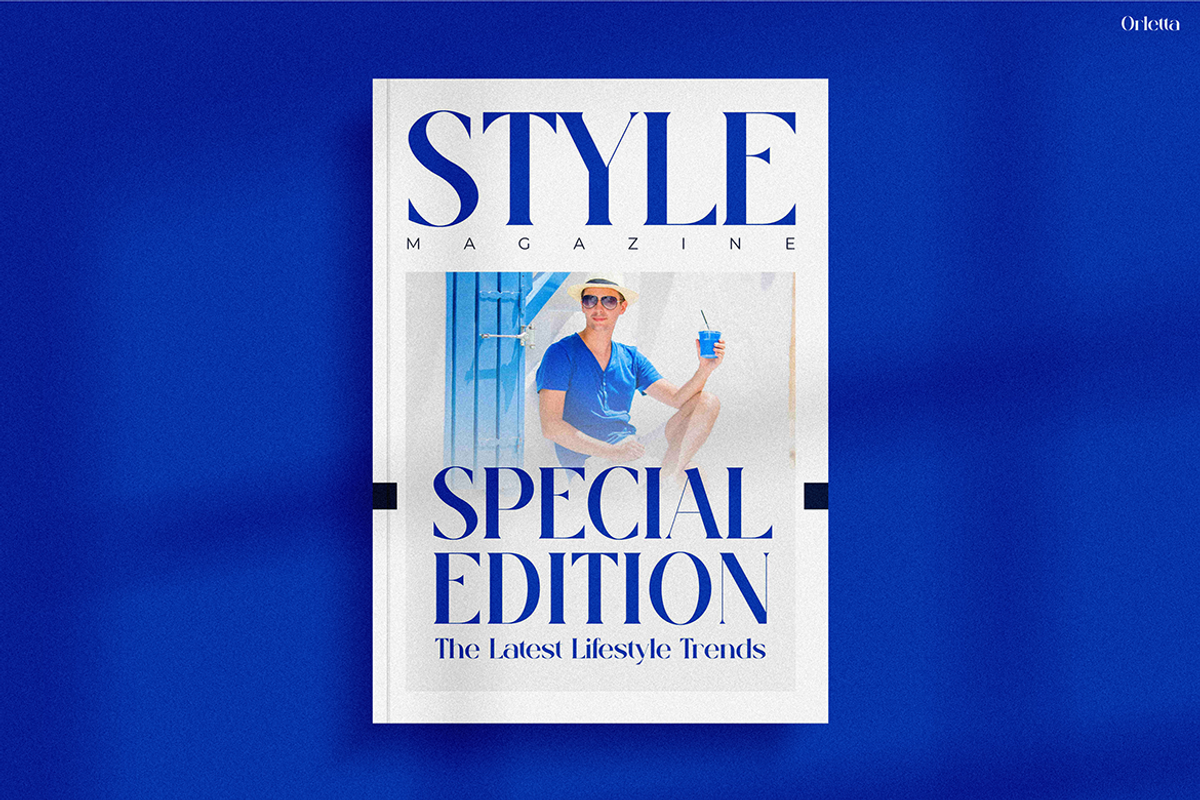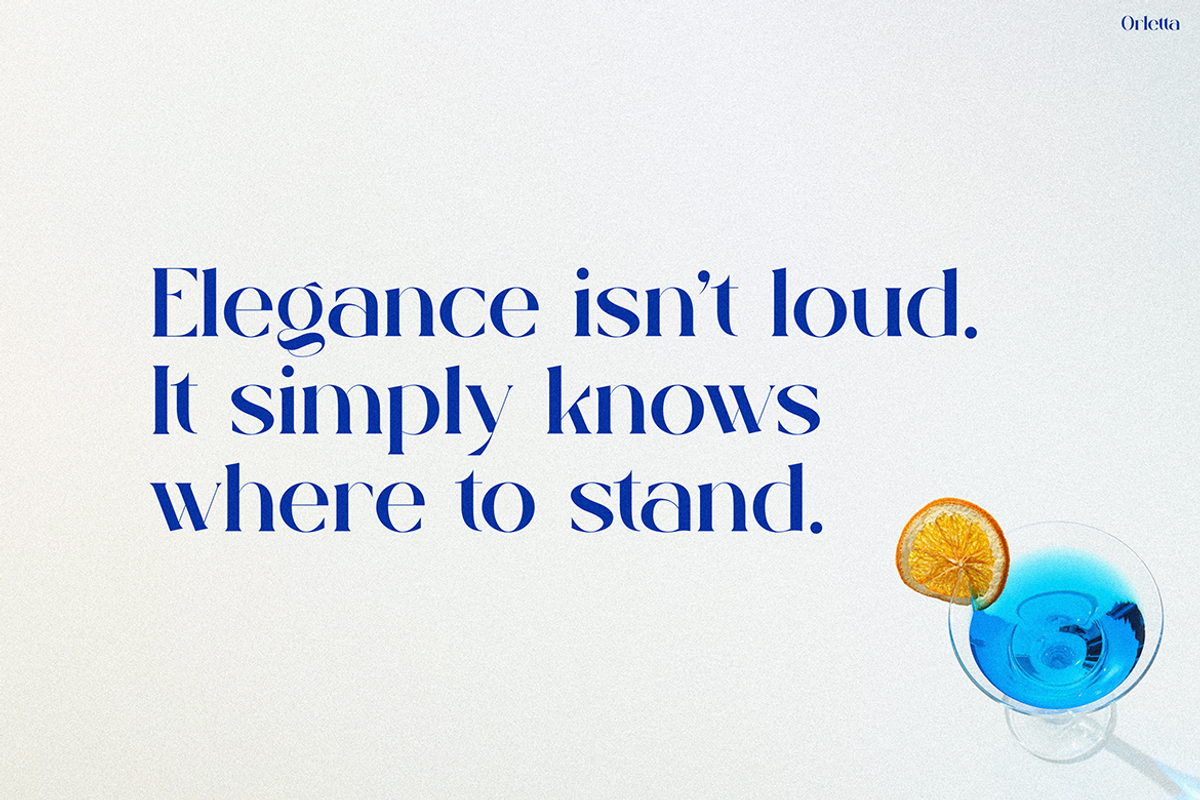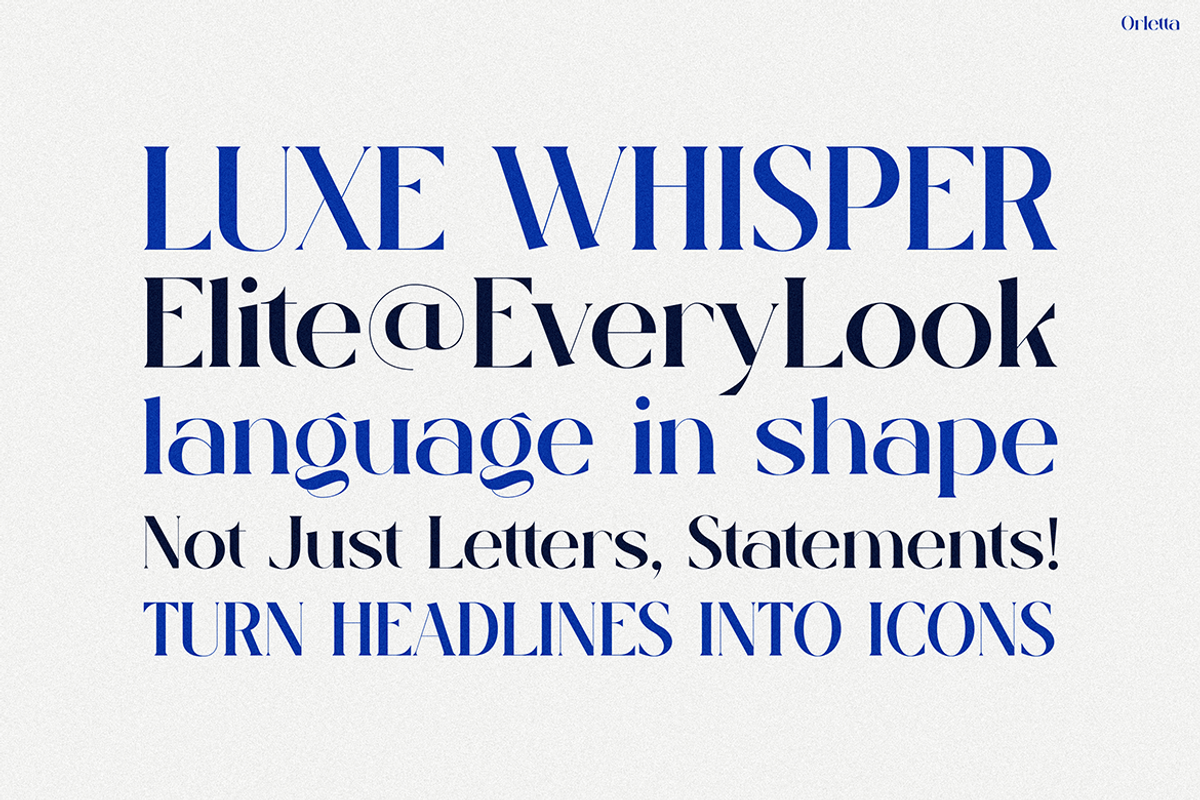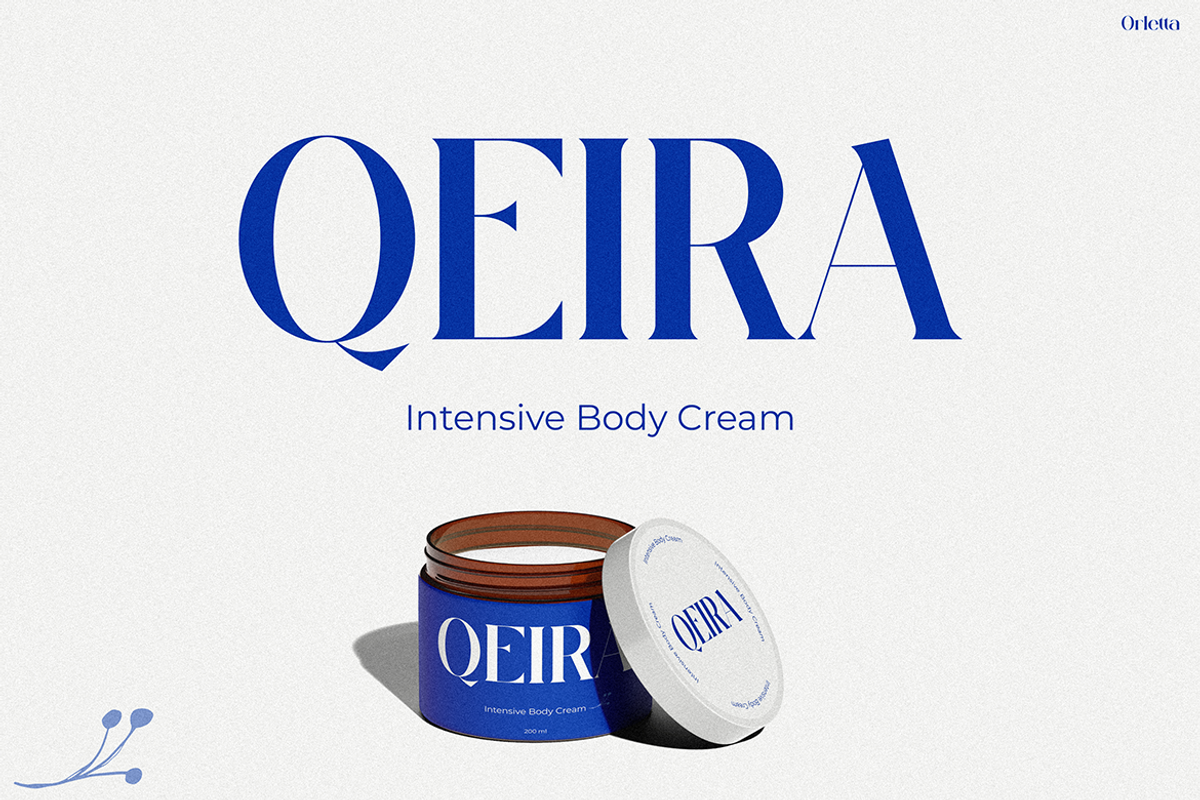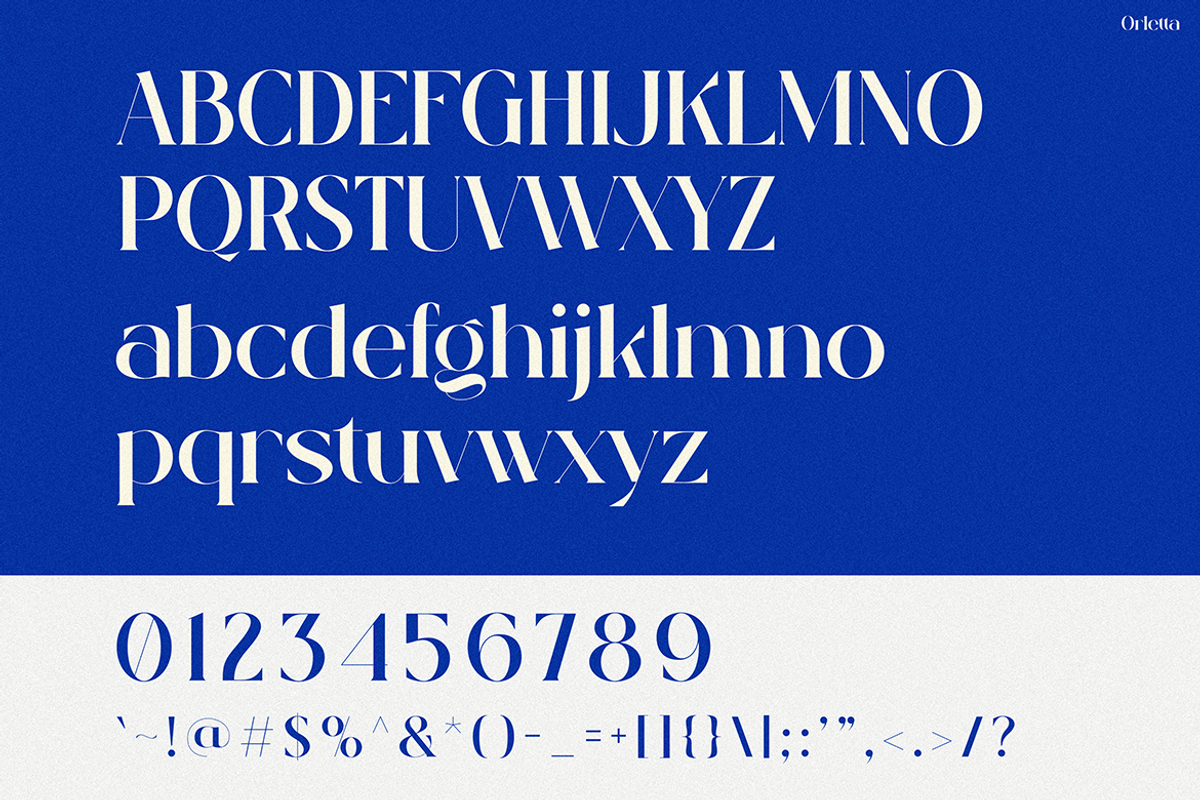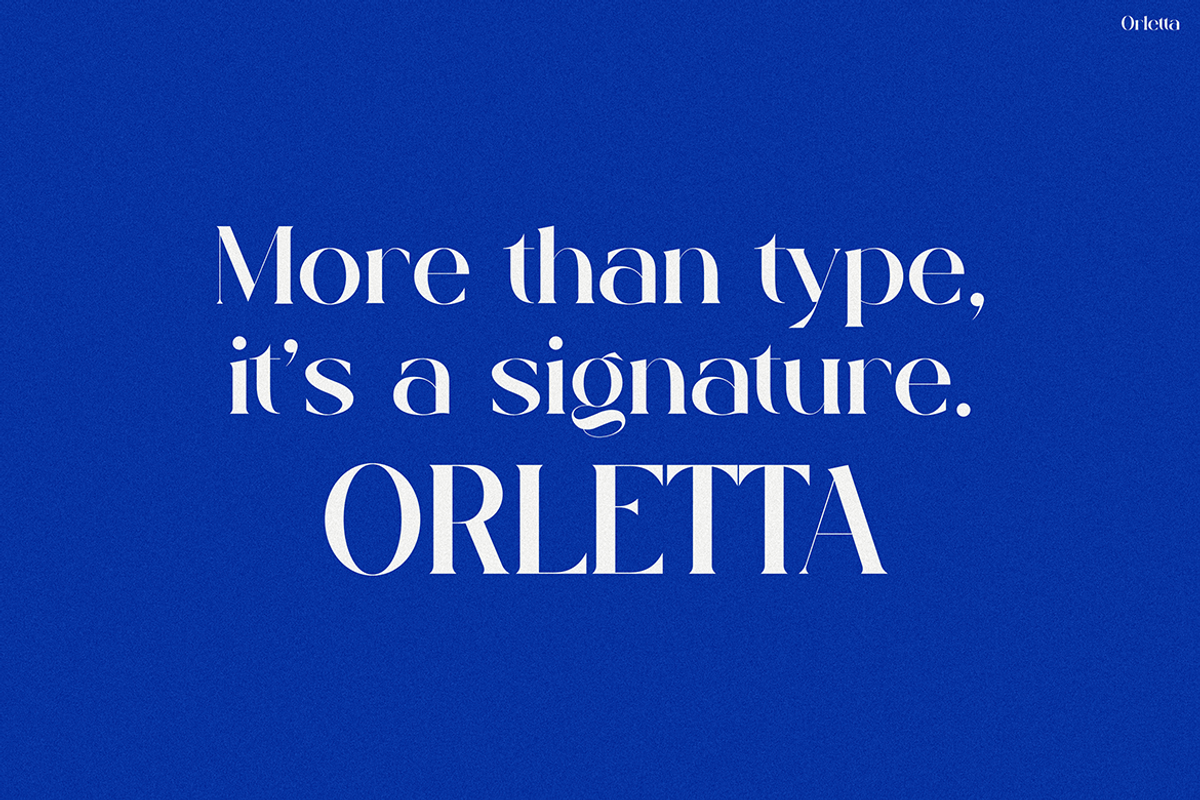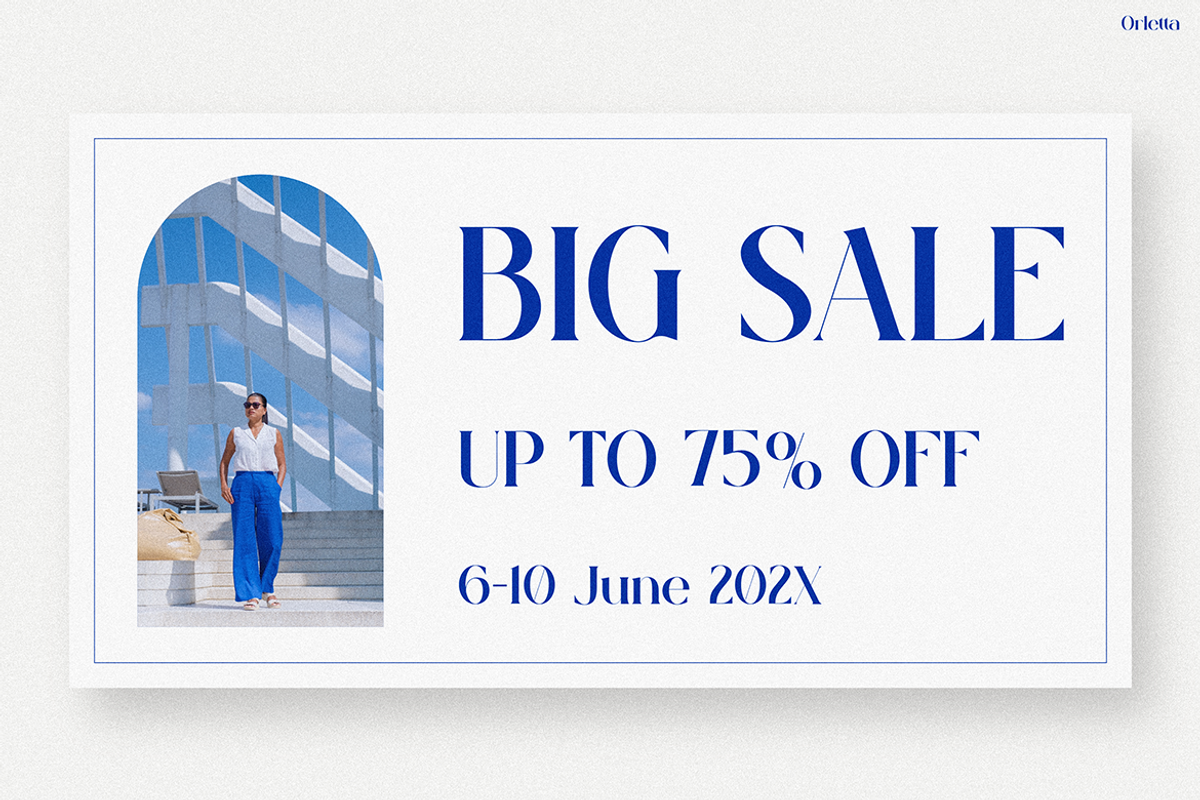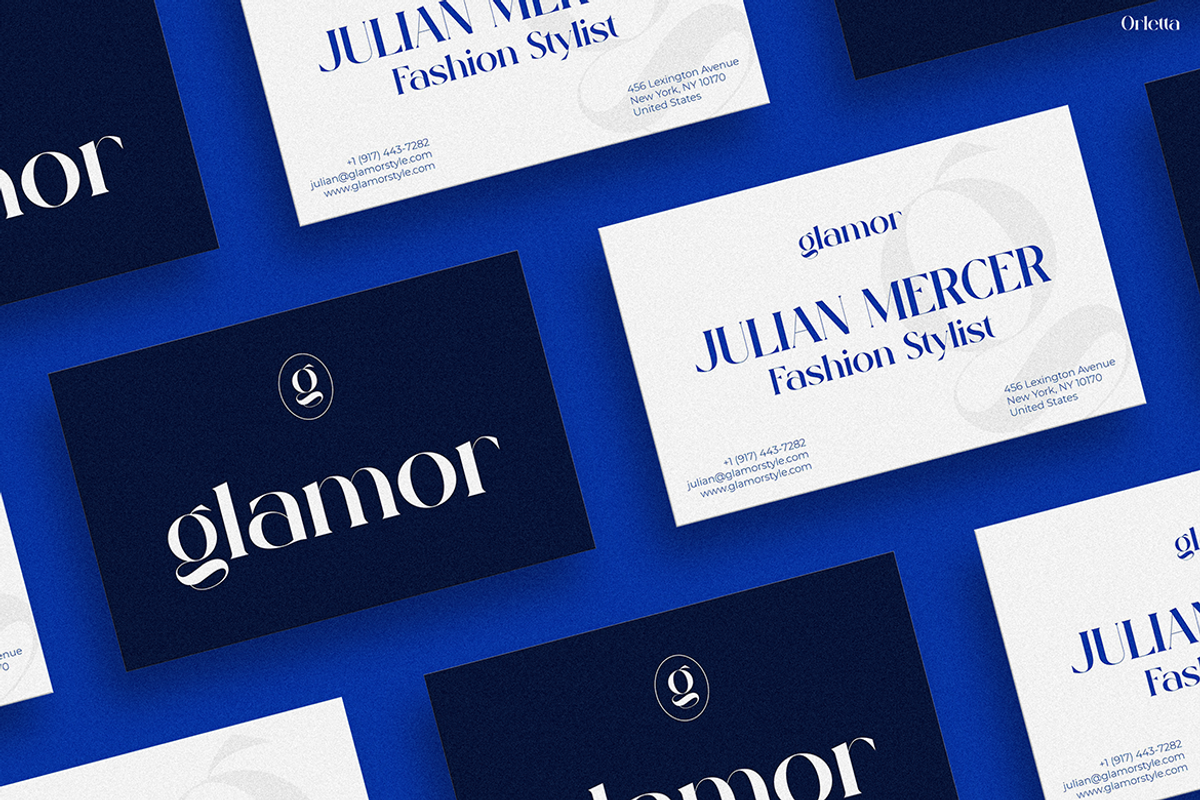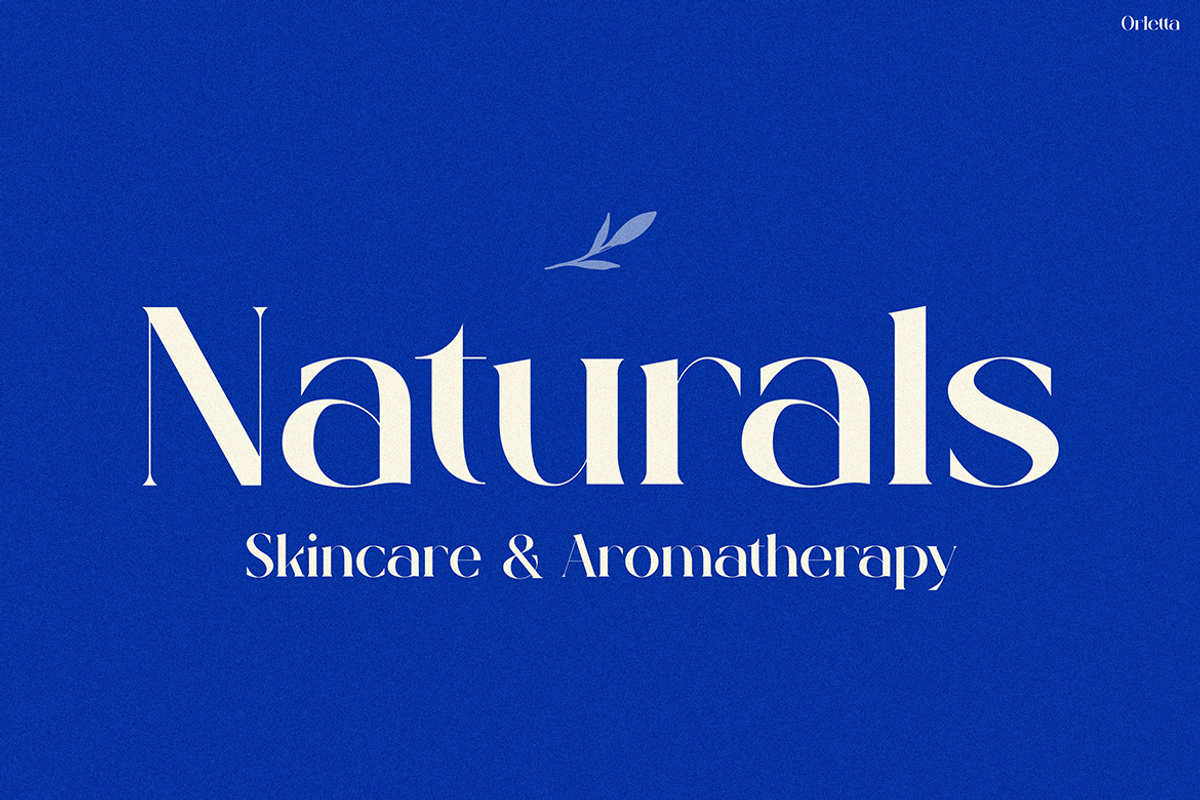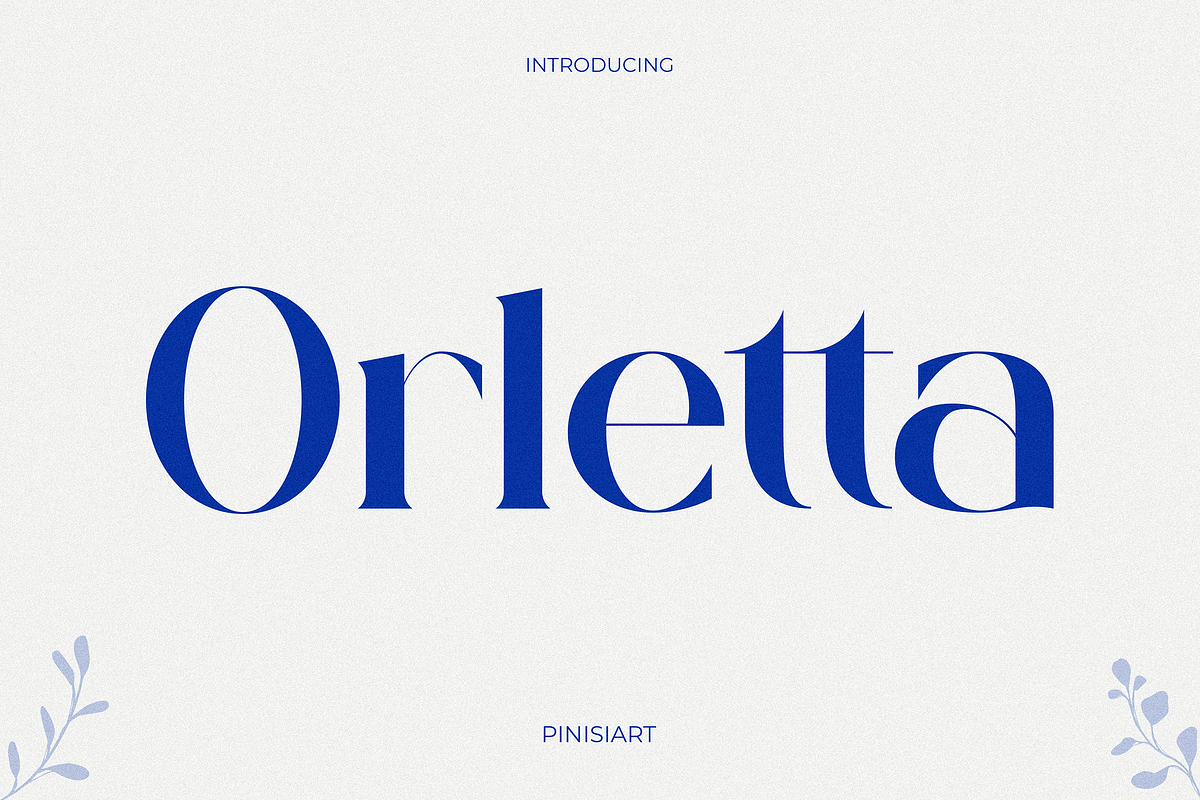
Orletta
Instagram Font Orletta is the elegant answer to modern branding needs—where style meets personality. From the very first glance, Orletta captures attention with its sleek curves, sophisticated contrast, and beautifully crafted letterforms that make every word feel like a signature. Not only does this font stand out visually, but it also brings a unique rhythm to every composition. Moreover, Orletta doesn’t just fill space—it communicates class, style, and confidence. Designed to shine on digital platforms like Instagram, Orletta adds a bold visual voice to your content. Whether it’s a headline, a quote post, or a product promo, each letter is built to impress.
What makes Orletta truly unique is its seamless blend of modern geometry with classic high-fashion typography. Each character has been refined with great care to ensure readability while preserving a sophisticated aesthetic. In addition, the clean lines, luxurious appeal, and high-contrast strokes give it a polished yet expressive feel. Consequently, Orletta becomes more than just a font—it becomes the visual heartbeat of your brand. Especially on visually-driven platforms, it elevates ordinary posts into captivating visuals. As a result, your feed gains consistency, style, and authority.